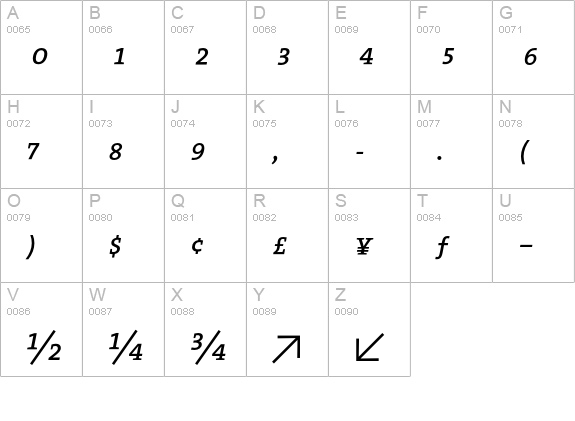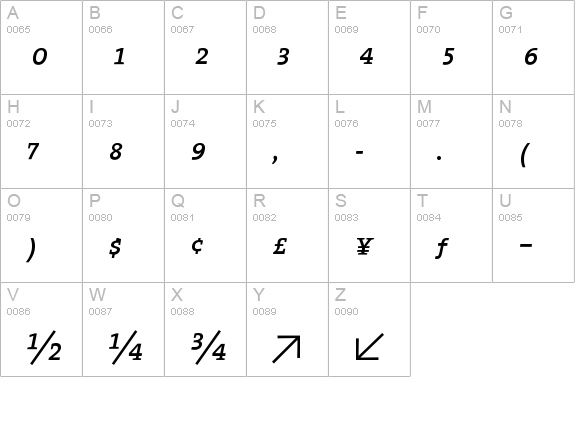
TheSerif SemiLight Expert Italic Font Details
TheSerif SemiLight Expert Italic is a distinctive, italic variant in the TheSerif typeface family \xE2\x80\x94 well suited to design and typography projects.
TheSerif SemiLight Expert Italic font is a stunning typeface that exudes elegance and sophistication. Its expertly crafted design showcases the perfect balance between modernity and classicism, making it a versatile choice for a wide range of creative projects. This font features a semi-light weight, adding a touch of delicacy and finesse to any text. The italic style further enhances the font's graceful appearance, providing a subtle slant that adds a sense of dynamism and fluidity to the characters. TheSerif SemiLight Expert Italic font is not only visually appealing, but it also offers exceptional legibility, ensuring that your words are effortlessly readable. Whether used for body text or headlines, this font guarantees clarity and ease of comprehension. What makes TheSerif SemiLight Expert Italic font even more remarkable is that it is freely available to download at FontsMarket.com. This means that you can easily access and utilize this exceptional typeface for all your personal and professional projects without any financial constraints. So, whether you are designing a website, creating a logo, or working on a branding project, TheSerif SemiLight Expert Italic font is the perfect choice. Its timeless elegance, combined with its availability as a free download, makes it a must-have resource for designers, typographers, and creatives alike.